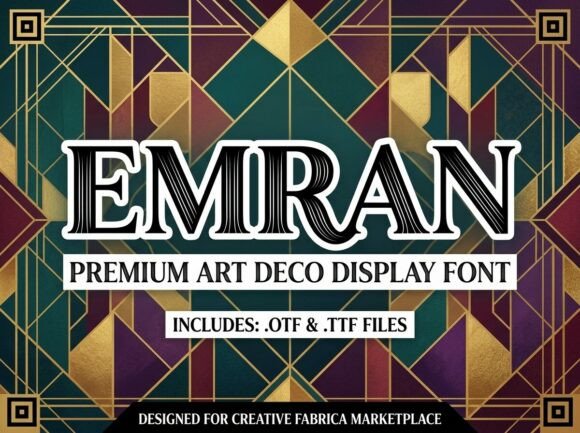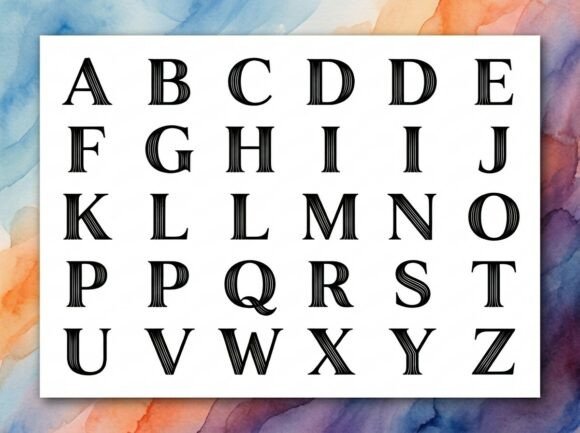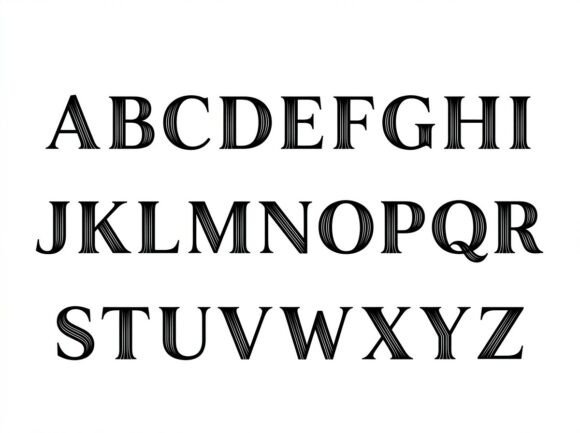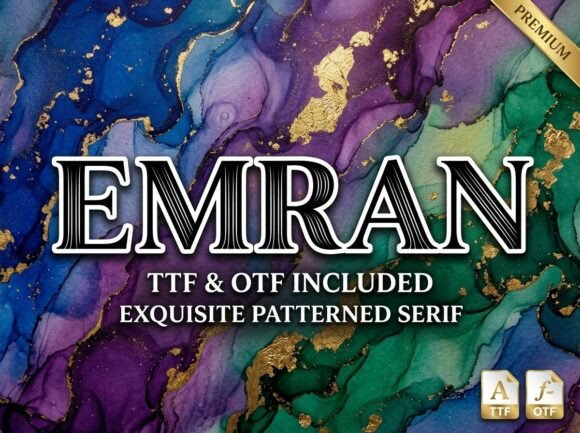
Introducing Emran Font: A Stunning Decorative Display Font
Are you tired of using the same old fonts for your designs? Do you want to add a touch of uniqueness and creativity to your projects? Look no further than Emran Font, a decorative display font that is sure to turn heads. In this article, we’ll take a closer look at Emran Font, its features, and how it can elevate your designs.
Emran Font is a stunning decorative display font designed to be the center of attention. With its unique artistic elements and strong visual personality, this font is perfect for creators who want to break away from the ordinary. Whether you’re working on a bold headline, artistic logo, or creative packaging, Emran Font is versatile enough to make a lasting impression.
Key Features of Emran Font
- Unique Artistic Elements: Emran Font features intricate and artistic elements that set it apart from other fonts.
- Strong Visual Personality: This font has a distinct personality that is sure to grab attention.
- Versatile: Emran Font can be used for a variety of design projects, including bold headlines, artistic logos, and creative packaging.
- Professional and Polished Finish: Despite its decorative nature, Emran Font maintains a professional and polished finish.
Before purchasing Emran Font, please note that it is an ALL-CAPS (Uppercase Only) display typeface. This means that it does not include lowercase letters. It is specifically designed for high-impact headlines, logos, and decorative initials where every letter is a work of art.
Why Choose Emran Font?
So, why should you choose Emran Font for your design projects? Here are just a few reasons:
- Add a Touch of Uniqueness: Emran Font offers a fresh and unique perspective for your designs.
- Stand Out from the Crowd: With its strong visual personality, Emran Font is sure to make your designs stand out.
- Perfect for Creative Projects: Whether you’re working on a logo, headline, or packaging, Emran Font is perfect for creative projects.
How to Use Emran Font
Emran Font can be used in a variety of design projects, including:
- Logos: Create a stunning logo that demands attention with Emran Font.
- Headlines: Add a touch of creativity to your headlines with Emran Font.
- Packaging: Use Emran Font to create eye-catching packaging that stands out.